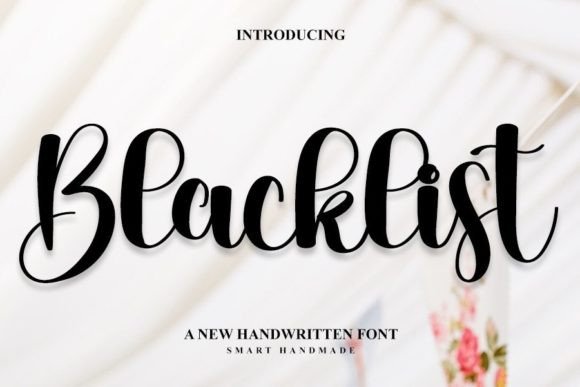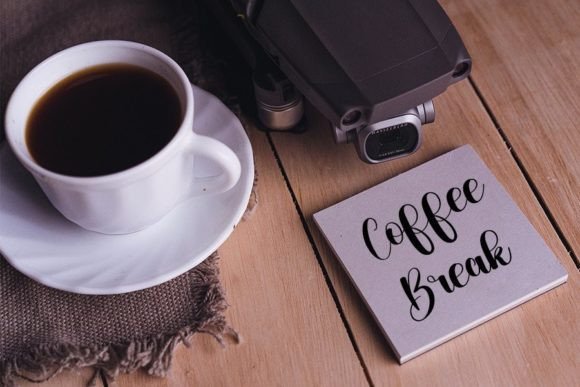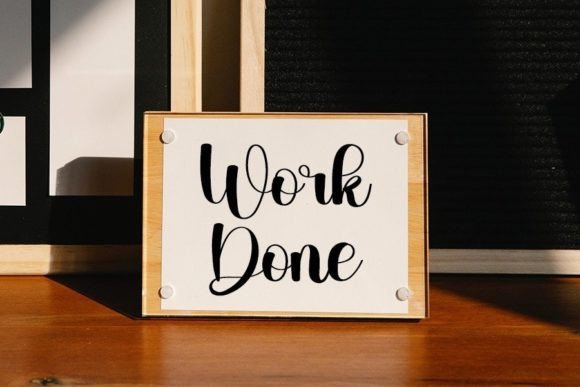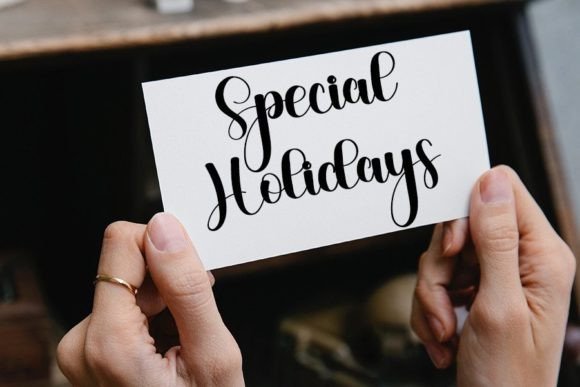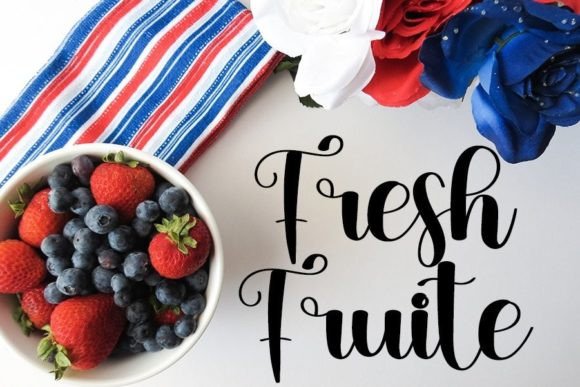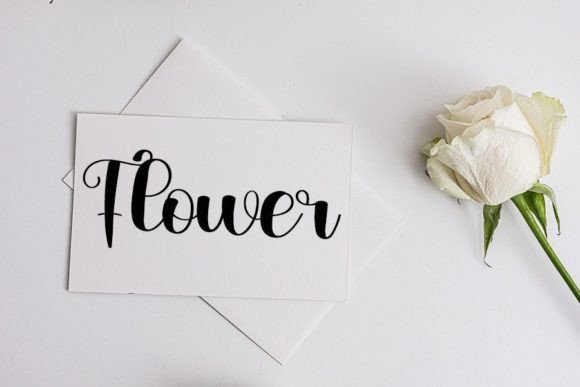
Blacklist Font
About Blacklist Font
Blacklist is a stylish handwritten font that exudes contemporary elegance and impeccable form. Inspired by timeless classic calligraphy, this font embodies a perfect balance between tradition and modernity. Its sophisticated design and varied letterforms were meticulously crafted to enhance the beauty of your projects and elevate them to new heights.
One of the key features of Blacklist is its ability to create a captivating atmosphere. The font’s contemporary vibe adds a touch of sophistication and refinement, making it ideal for a wide range of design applications. Whether you’re working on branding materials, wedding invitations, advertising campaigns, packaging designs, or any other creative project, Blacklist brings a sense of style and class to your compositions.
The font’s impeccable form and balanced proportions ensure a harmonious flow of text, making it easy to read while maintaining a high level of visual appeal. Its versatility allows it to adapt seamlessly to various design contexts, enhancing the overall aesthetic of your projects. Whether you’re designing a sleek logo, crafting elegant stationery, or creating impactful social media posts, Blacklist adds a touch of timeless beauty to your designs.
Incorporating Blacklist into your projects not only enhances their visual appeal but also communicates a sense of sophistication and attention to detail. Its stylish handwritten quality makes it a popular choice among designers who seek a font that exudes elegance and refinement. By choosing Blacklist, you’re selecting a font that elevates your creativity and transforms your projects into works of art.
So, whether you’re designing a chic brand identity, creating luxurious wedding stationery, developing eye-catching advertisements, or working on any other creative endeavor, let Blacklist be your font of choice. Its stylish handwritten design, inspired by classic calligraphy, empowers you to infuse your designs with timeless beauty and impeccable form. Embrace the elegance of Blacklist and watch your projects come to life with a touch of sophistication and contemporary allure.